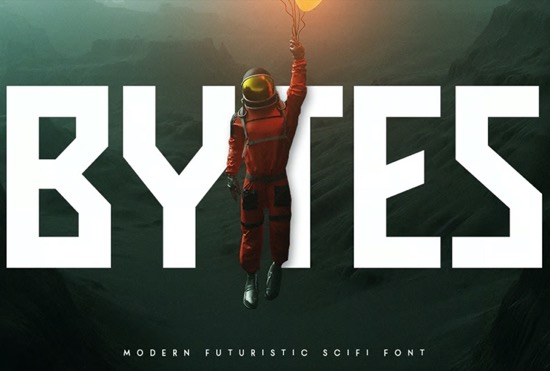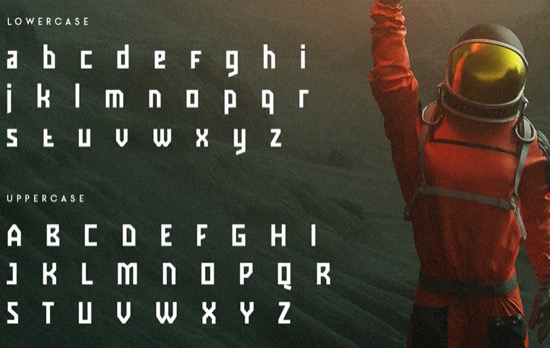
Groovy Master is a classy and stylish retro display font that exudes a chic and cool aesthetic. It is a futuristic sci-fi font created specifically for sci-fi, modern and tech designs. Its unique futuristic styles make your typography stand out, ideal for cryptocurrency, technology, cinema and sci-fi themes. BYTES’s modern aesthetic brings a touch of tech inspiration to any project, perfect for expressing your main ideas.
Features of BYTES futuristic sci-fi font:
- Stylish and futuristic characters designed for technology-themed creativity
- Preview examples to inspire your designs with BYTES font
- Includes special tech and sci-fi characters
- Perfect for headlines, posters, branding and digital art
Enhance your designs with BYTES’s cutting-edge style and make your projects shine. Enjoy the futuristic touch BYTES brings to your work!